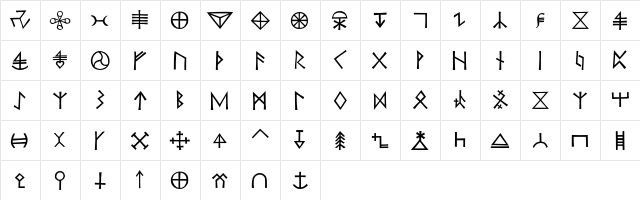
KochSigns Five
Design Context for KochSigns Typeface
KochSigns is a composed and adaptable typeface that performs quietly and consistently across a wide range of design contexts.